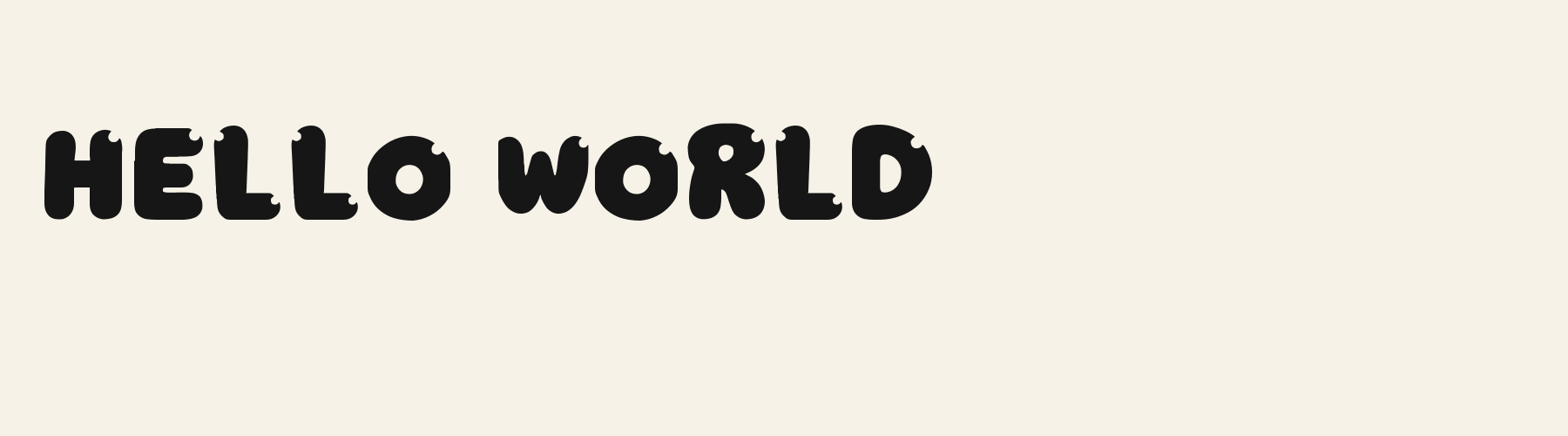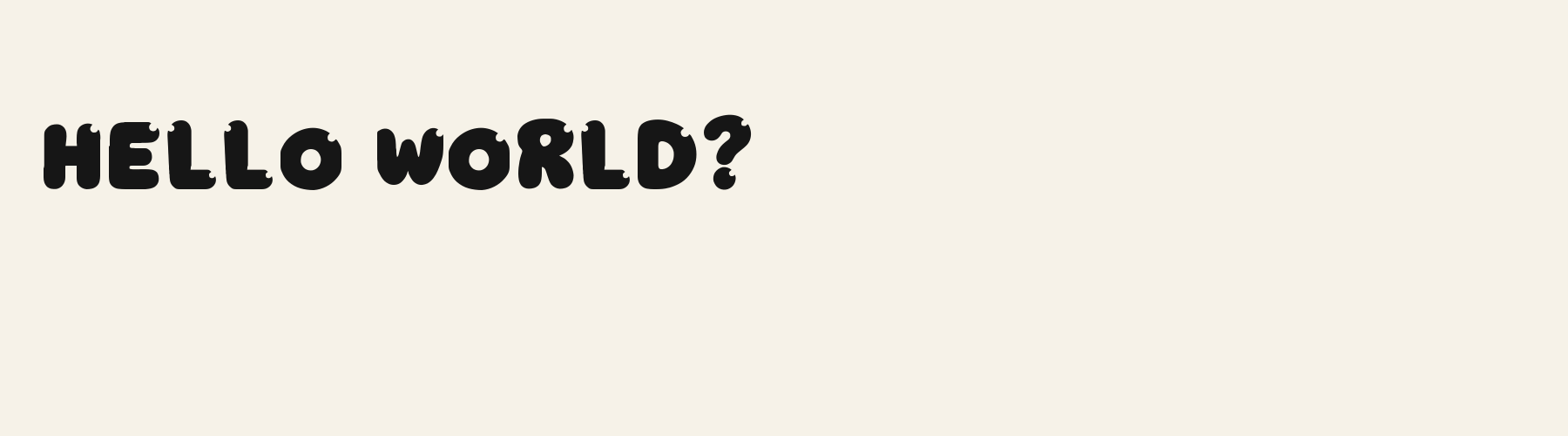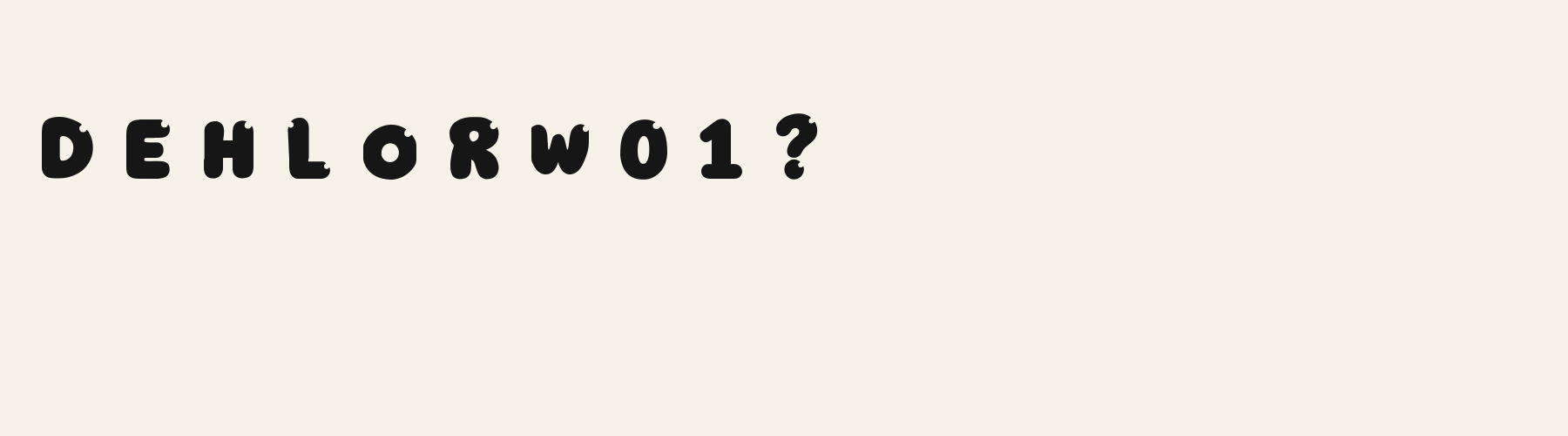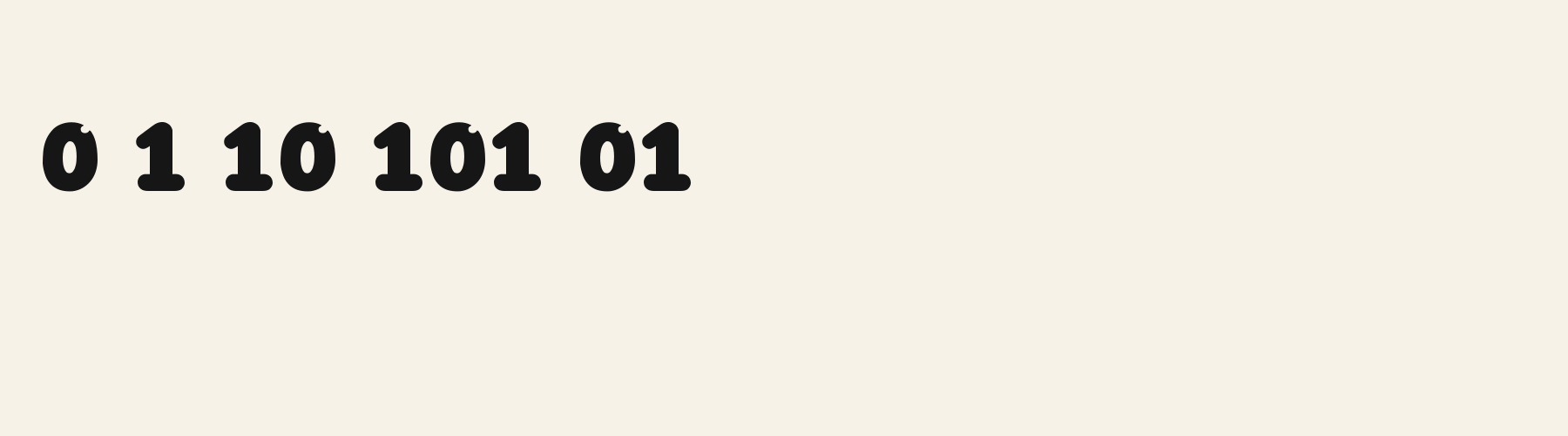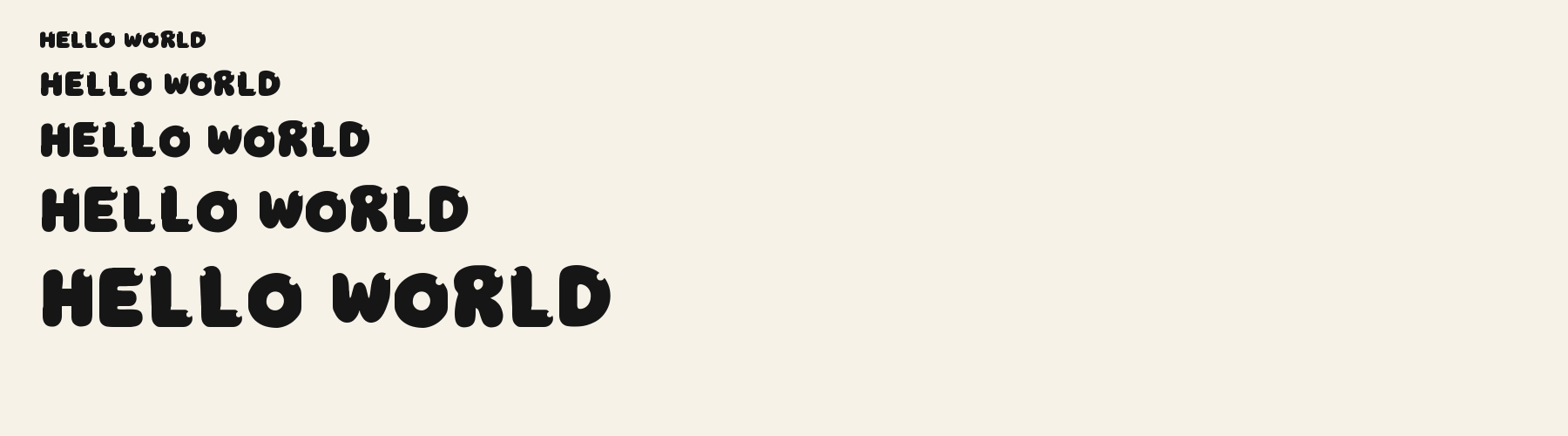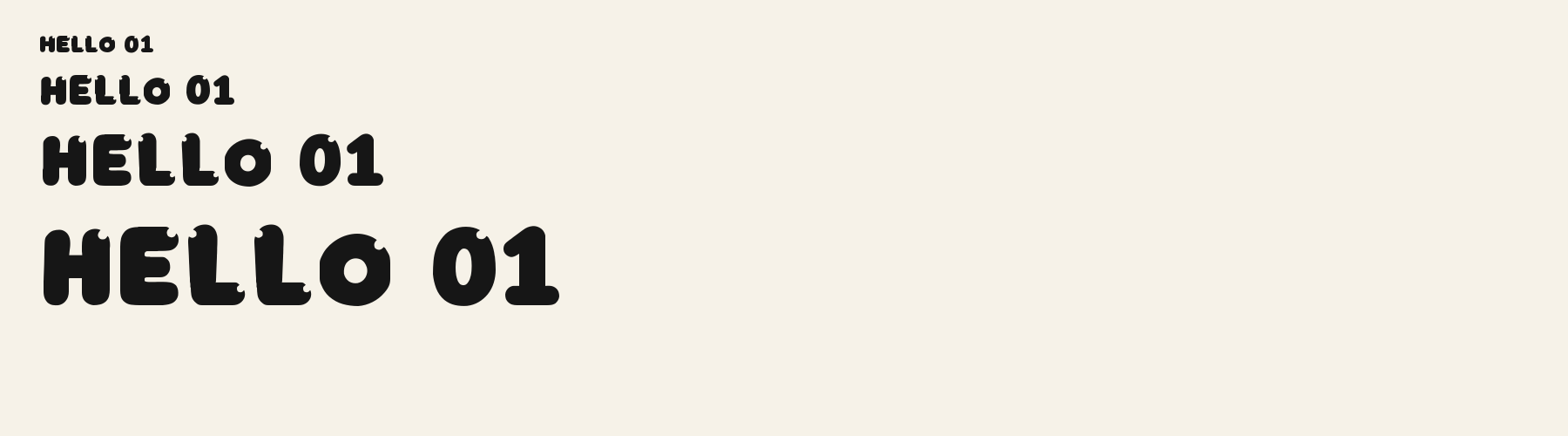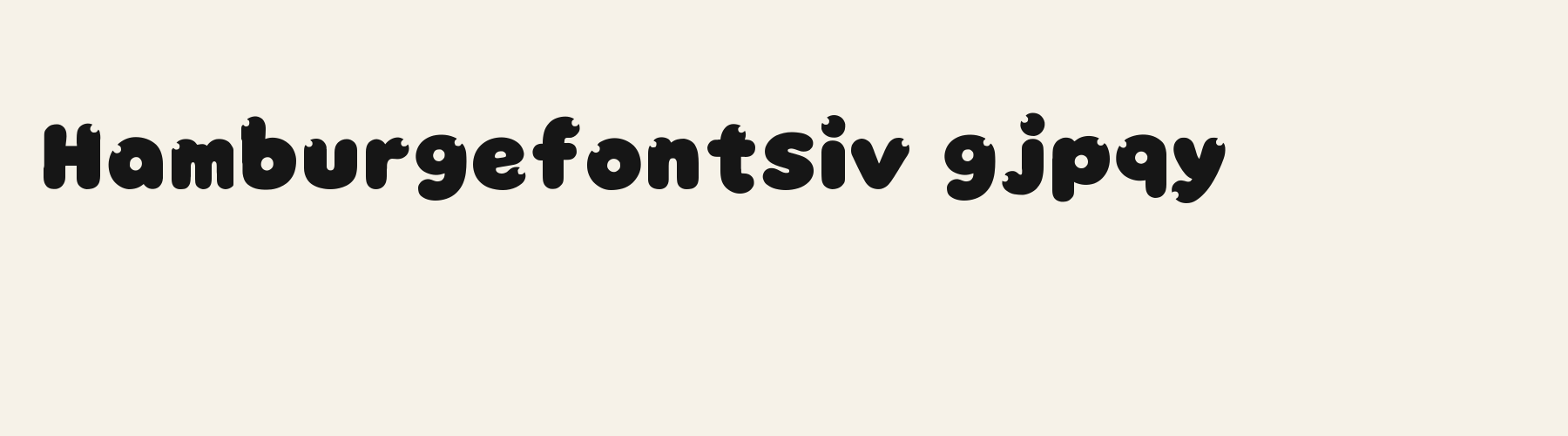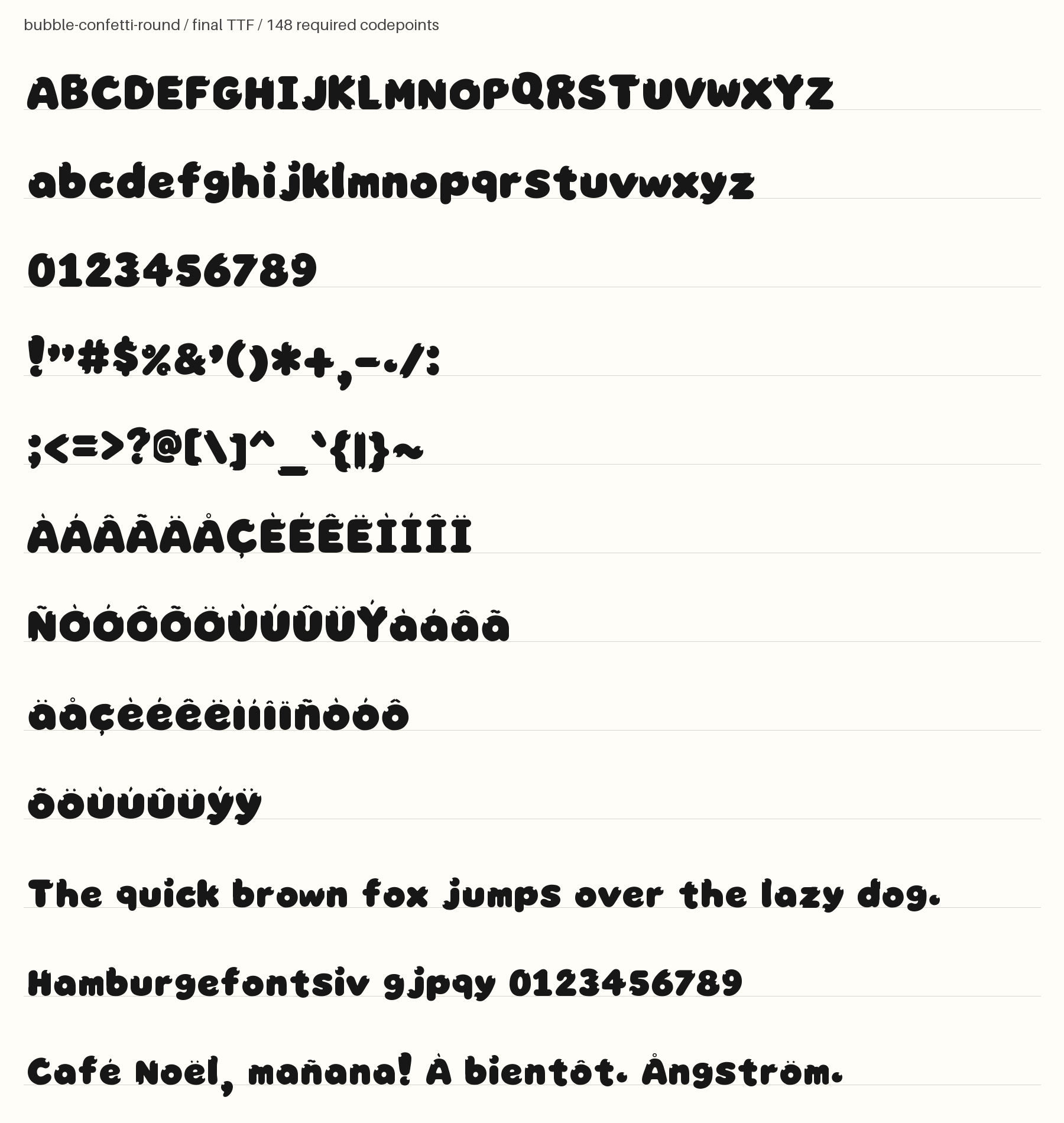
Cute Storybook Round
DisplayCute Storybook Round
Bubble Confetti Round is a birthday headlines, children’s activity covers and playful labels. heavy even inflated strokes, open counters, compact ascenders and soft rounded joins. Best for birthday headlines, children’s activity covers and playful labels.